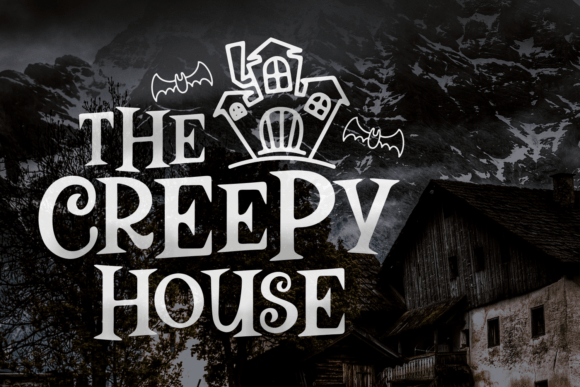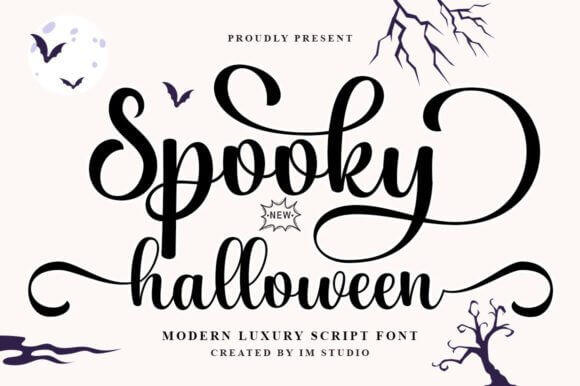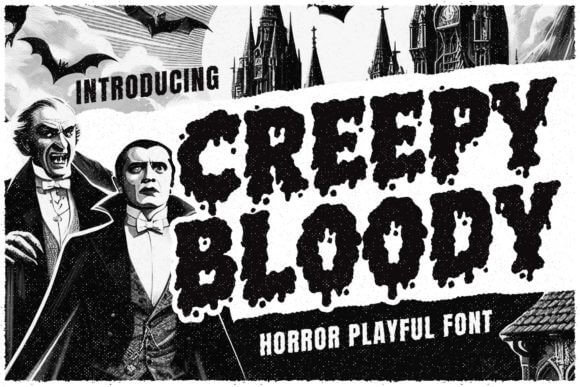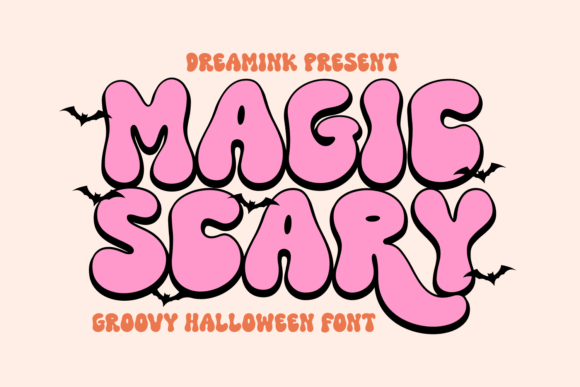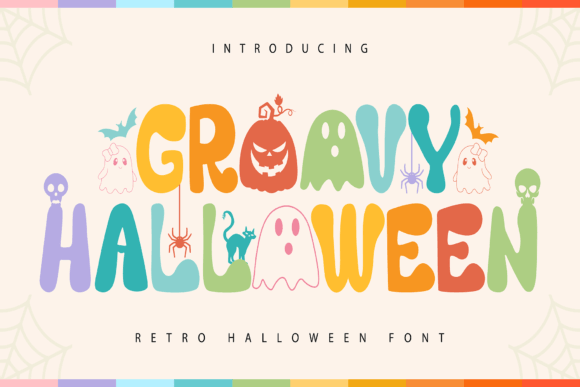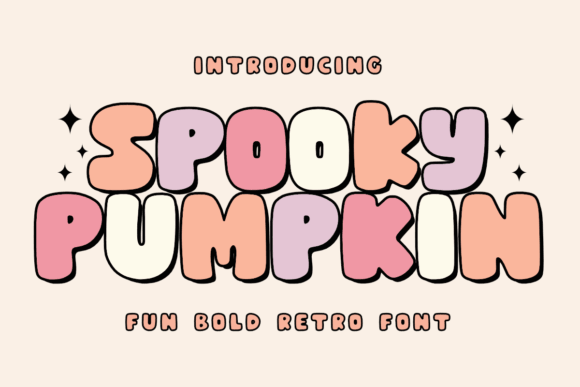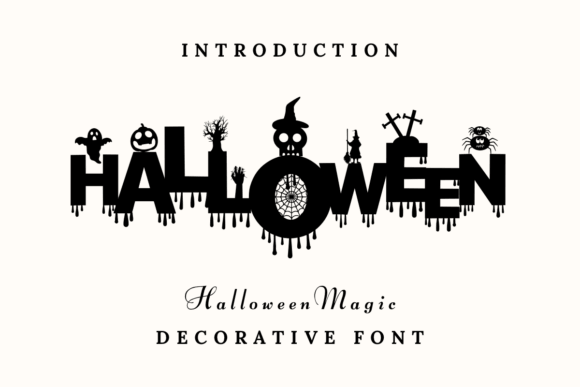
If you keep searching for Halloween fonts free and landing on the same tired typefaces, yeah, we get it. At Increobox, we rounded up 15 styles that feel usable in real projects – party flyers, Cricut crafts, mug designs, printable wall art, labels, and quick social graphics – not just mockups that look cute once and fall apart the second you type your own words.
Some lean bloody and loud, some go retro, some play nice with cute pumpkin themes, and a few carry that rough handmade edge people love for October branding. Good lettering changes the whole mood fast; a strong headline can make a small design look custom, and a weak one can flatten a great layout. So this list mixes spooky lettering, free printable Halloween fonts, and versatile display picks you can test right away.
The Creepy House For Haunted Headline Design
The Creepy House leans hard into crooked haunted-mansion energy, and that’s why it works. The letters feel carved from old wood, a little uneven, a little dramatic, perfect for a haunted house logo or a poster title that needs instant atmosphere without turning unreadable. We’d use it for big words, short lines, and layouts that want eerie texture more than polish.
Best Uses For This Font
- Haunted Attraction Posters – Add instant old-house tension.
- Candle Labels – Give handmade packaging a darker edge.
- Escape Room Branding – Set the mood right away.
- October Social Headers – Make quick promos feel crafted.
Spooky Halloween For Bold Seasonal Graphics
This one gives you the classic Halloween fonts free vibe people actually search for – chunky, legible, and easy to drop into kid-friendly or all-ages graphics. It has enough edge for spooky poster typography, but it never goes full gore, which honestly makes it more flexible for signs, stickers, and printable headers that still need to feel fun.
Smart Places To Use It
- Halloween Classroom Printables – Clear and playful.
- Party Invitation Covers – Strong title impact.
- Spooky Sale Banners – Easy to read at a glance.
- Trick-Or-Treat Tote Designs – Cute, not chaotic.
Creepy Bloody For Dripping Horror Type
Creepy Bloody does the obvious thing, blood drips, but it does it well. Some horror fonts get so messy they become a visual headache; this one keeps the blood drip lettering readable, so you can use it on shirt graphics, horror thumbnails, and punchy promo art without people squinting at the screen.
Great Matches For This Style
- Slasher Poster Titles – Loud and graphic.
- Horror T-Shirt Prints – Easy drama, fast.
- Zombie Event Graphics – Leans into the gore.
- Video Thumbnail Text – Stays readable in small sizes.
Magic Scary For Playful Dark Lettering
Magic Scary mixes a dark theme with a lighter, almost whimsical rhythm. That combo makes it great for a witchy invitation font when you want broomsticks and moonlight, not full slasher chaos . . . kind of charming, kind of creepy, and way easier to pair with stars, potions, or pastel-black palettes.
Design Projects That Fit
- Witch Party Invitations – Soft spooky energy.
- Spell Book Covers – Decorative without fuss.
- Moon Phase Stickers – Pairs well with celestial art.
- Potion Label Sets – Adds playful mystic style.
Groovy Halloween For Retro October Vibes
Groovy Halloween swerves into retro territory and, honestly, that’s refreshing. Instead of stale horror clichés, you get bubbly curves and 70s attitude that fits retro halloween branding, funky packaging, disco-spooky party art, or any October design that wants orange, plum, slime green, and zero grim seriousness.
Where This Retro Style Shines
- Retro Party Flyers – Brings instant era flavor.
- Vintage Candy Packaging – Fun and shelf-friendly.
- 70s-Themed Event Graphics – Feels on-brief fast.
- Funky October Stickers – Bright and playful.
Spooky Pumpkin For Cute Craft Typography
Spooky Pumpkin feels cute first, spooky second, which is a smart lane if you design for family events or handmade goods. The rounded shapes suit pumpkin sticker design, classroom printables, favor tags, and market products where you want Halloween charm without that aggressive haunted-house scream.
Nice Fits For Cute Halloween Work
- Kids Craft Printables – Friendly and simple.
- Pumpkin Patch Signage – Warm seasonal tone.
- Teacher Worksheets – Keeps things cheerful.
- Cute Treat Bag Tags – Great for small text accents.
Halloween Magic For Witchy Display Work
Halloween Magic goes decorative without turning fussy. We like it for quote art and headers because the details give magical halloween quote art real personality, yet the forms still read clean at a glance, which matters a lot when your design lives on phone screens and fast-scrolling promo posts.
Strong Uses For This Look
- Quote Posters – Adds charm and mood.